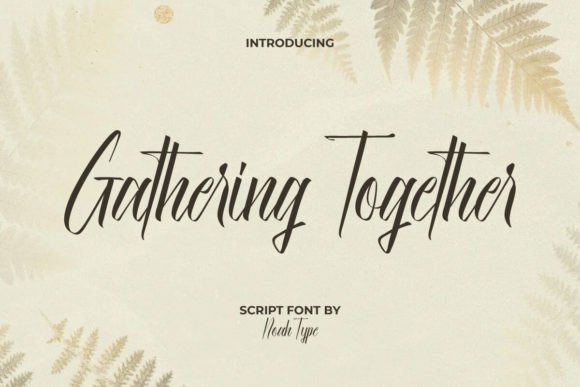
Gathering Together Font: A Luxurious Signature Calligraphy Script Font
In the world of typography, fonts play a crucial role in conveying the tone and personality of a brand or design. Among the numerous fonts available, Gathering Together Font stands out as a gorgeous signature calligraphy script font that exudes luxury and sophistication. This beautiful font is crafted with elegant lines that will delight your eyes and inspire you to create glamorous designs.
What is Gathering Together Font?
Gathering Together Font is a meticulously designed calligraphy script font that embodies the essence of luxury and refinement. Its stunning lines and curves make it an ideal choice for creating visually appealing designs that convey a sense of high-end quality. Whether you’re designing apps, business cards, custom designs, invitations, labels, magazine catalogs, menus, posters, product packaging, quotes, titles, watermarks, websites, or more, Gathering Together Font is the perfect companion.
Key Features of Gathering Together Font
- Luxurious and elegant design: Gathering Together Font boasts a sophisticated and refined design that adds a touch of luxury to any project.
- Beautiful lines and curves: The font’s stunning lines and curves create a visually appealing aesthetic that will delight your eyes.
- Versatile usage: Gathering Together Font is suitable for a wide range of design applications, from apps and business cards to websites and product packaging.
- High-end quality: This font is perfect for designers who want to create high-end designs that convey a sense of luxury and sophistication.
Uses of Gathering Together Font
Gathering Together Font is an incredibly versatile font that can be used in various design projects. Here are some of the ways you can utilize this gorgeous font:
Design Applications
- Apps: Use Gathering Together Font to create stunning app designs that exude luxury and sophistication.
- Business Cards: Add a touch of elegance to your business cards with this beautiful font.
- Custom Designs: Create unique and visually appealing custom designs for various purposes, such as events, promotions, or branding.
- Invitations: Design elegant and sophisticated invitations for weddings, parties, or other special occasions.
- Labels: Use Gathering Together Font to create beautiful labels for products, files, or folders.
- Magazine Catalogs: Add a touch of luxury to your magazine catalogs with this stunning font.
- Menus: Design elegant menus for restaurants, cafes, or other establishments.
- Posters: Create eye-catching posters for events, promotions, or advertising campaigns.
- Product Packaging: Use Gathering Together Font to create luxurious and eye-catching product packaging.
- Quotes: Design inspiring and visually appealing quotes for social media, blogs, or websites.
- Titles: Use this font to create stunning titles for books, articles, or other written content.
- Watermarks: Add a touch of elegance to your watermarks with Gathering Together Font.
- Websites: Use this font to create a luxurious and sophisticated online presence.
Benefits of Using Gathering Together Font
Gathering Together Font offers numerous benefits to designers, including:
Why Choose Gathering Together Font?
- Unique and distinctive design: This font’s elegant and luxurious design sets it apart from other fonts.
- High-quality typography: Gathering Together Font is crafted with attention to detail, ensuring high-quality typography for your designs.
- Time-saving: With Gathering Together Font, you can create stunning designs quickly and efficiently.
- Versatility: This font is suitable for a wide range of design applications, making it a valuable addition to your font collection.
- Ease of use: Gathering Together Font is easy to use and integrate into your design projects.
Tips for Using Gathering Together Font Effectively
To get the most out of Gathering Together Font, follow these tips:
Best Practices for Using Gathering Together Font
- Use it sparingly: To maintain its luxurious feel, use Gathering Together Font sparingly in your designs.
- Pair it with complementary fonts: Combine Gathering Together Font with complementary fonts to create visually appealing typography.
- Experiment with colors and textures: Try out different colors and textures to enhance the font’s luxurious feel.
- Pay attention to spacing and kerning: Ensure that the font is properly spaced and kerned to maintain its elegance.
Gathering Together Font is a stunning signature calligraphy script font that embodies luxury and sophistication. Its elegant lines and curves make it perfect for creating visually appealing designs for various applications. With its versatility, high-quality typography, and ease of use, Gathering Together Font is an excellent addition to any designer’s font collection.